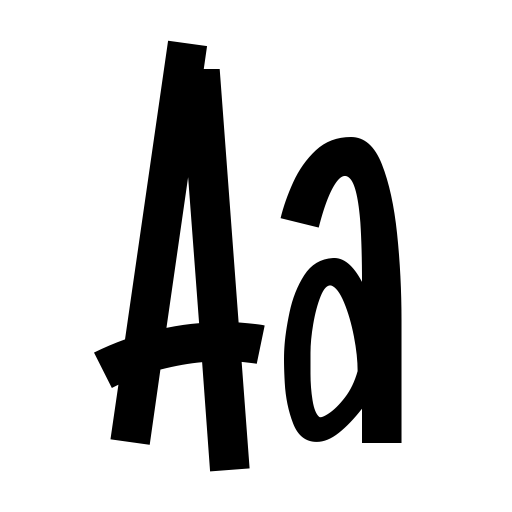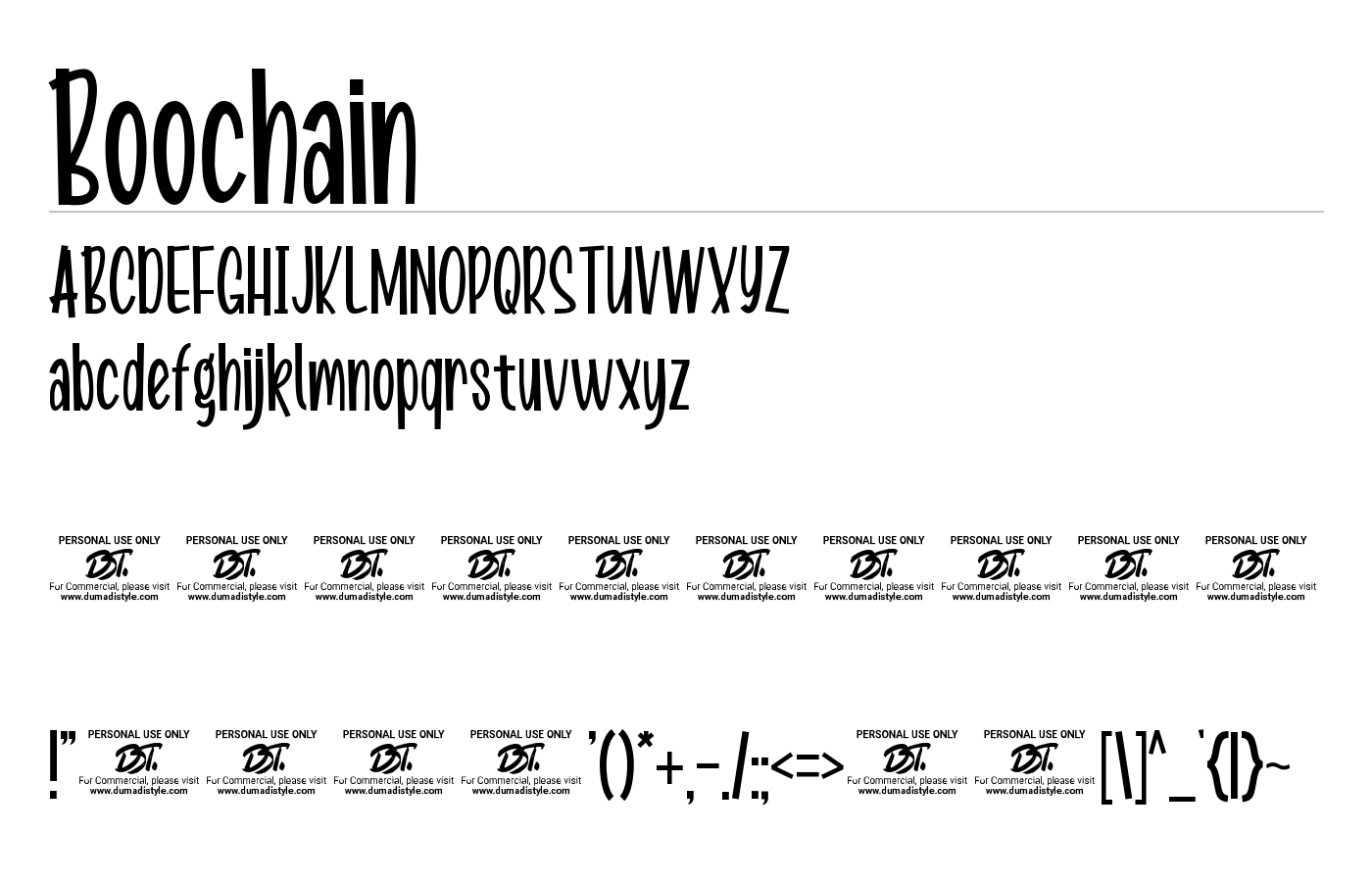
Boochain is a playful and quirky sans serif font characterized by its tall, narrow letterforms and uneven, hand-drawn appearance. With a lively, informal style, it offers a casual and creative vibe, making it ideal for fun branding, posters, and headlines that want to stand out with personality. Its distinct, slightly irregular characters create a friendly and engaging look suited for youthful or artistic projects.
Boochain Font
About Boochain Font